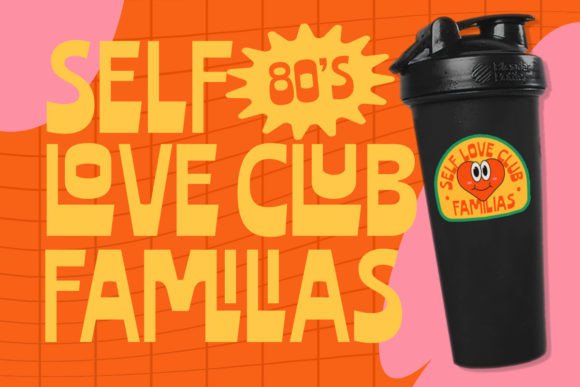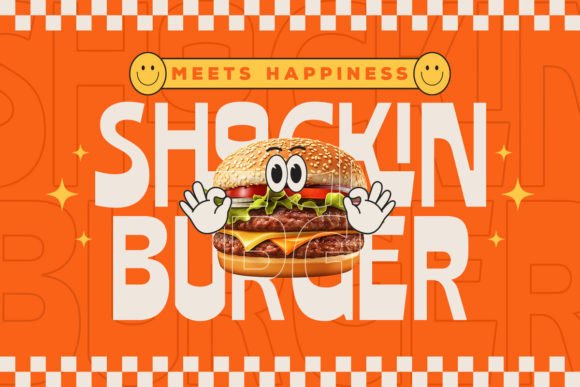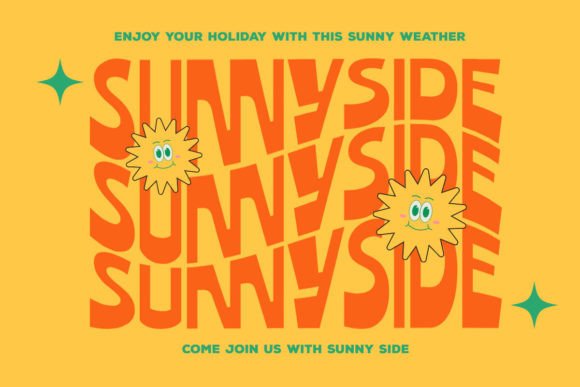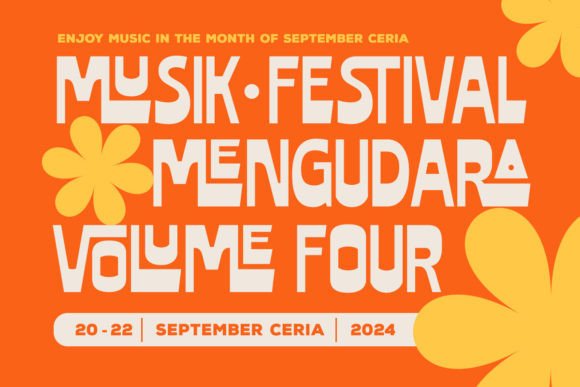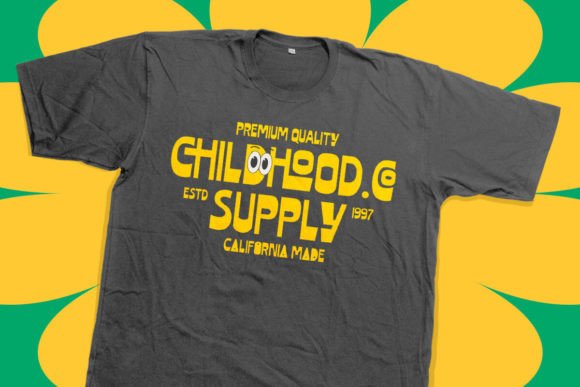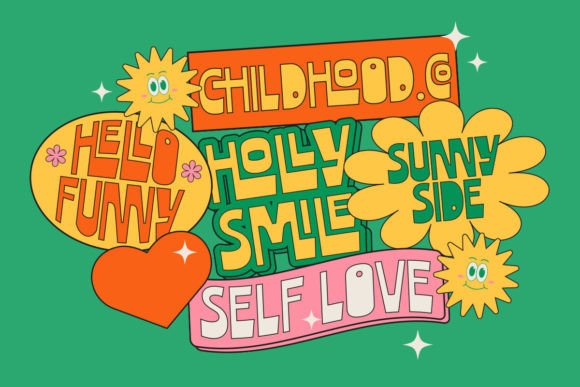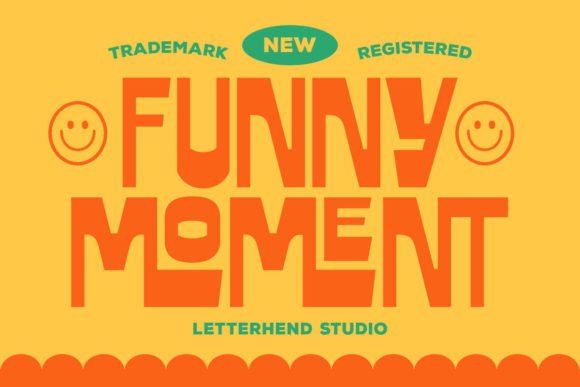
Introducing Funny Moment Font: A Retro Display Font to Bring Back the 60s Feel
Are you looking for a font that can transport you back to the fabulous 1960s? Look no further than the Funny Moment Font, a retro display font designed to evoke the nostalgia and playfulness of this iconic era. This font is perfect for designers and crafters who want to add a touch of vintage charm to their projects.
What is Funny Moment Font?
Funny Moment Font is a carefully crafted retro display font that is inspired by the typography of the 1960s. Its unique design features bold lines, curvaceous shapes, and a dash of whimsy, making it perfect for creating eye-catching logos, invitations, labels, and more.
This versatile font can be applied to a wide range of design projects, including:
• Logos: Create a memorable brand identity with Funny Moment Font.
• Invitations: Add a touch of vintage glamour to your party invites, wedding invitations, and other formal events.
• Labels: Make your product labels stand out with this unique font.
• Magazines and Books: Use Funny Moment Font to add a retro twist to your publications.
• Greeting and Wedding Cards: Create beautiful, one-of-a-kind cards for special occasions.
• Packaging: Add a pop of personality to your product packaging.
• Fashion and Makeup: Use Funny Moment Font to create stylish and eye-catching branding for your fashion or makeup business.
• Stationery: Elevate your stationery designs with this charming font.
• Novels: Give your book a retro makeover with Funny Moment Font.
• Advertising: Use this font to create attention-grabbing ads that stand out from the crowd.
Why Choose Funny Moment Font?
There are many reasons why Funny Moment Font stands out from the crowd:
• Unique Design: This font boasts a distinctive, retro aesthetic that’s sure to turn heads.
• High-Quality: Funny Moment Font is carefully crafted to ensure high-quality rendering, even at small sizes.
Tips for Using Funny Moment Font
To get the most out of Funny Moment Font, try these design tips:
• Pair with Neutral Colors: Balance out the boldness of the font with neutral colors like black, white, and gray.
• Experiment with Sizes: Play around with different font sizes to create visual interest and hierarchy.
• Add Texture: Add texture and depth to your design by layering Funny Moment Font with other design elements.
• Mix with Other Fonts: Combine Funny Moment Font with other fonts to create a unique and eye-catching typography.
Whether you’re a seasoned designer or a crafty DIY enthusiast, Funny Moment Font is the perfect choice for anyone looking to add a dash of nostalgia and whimsy to their designs. So go ahead, get creative, and have fun with Funny Moment Font!